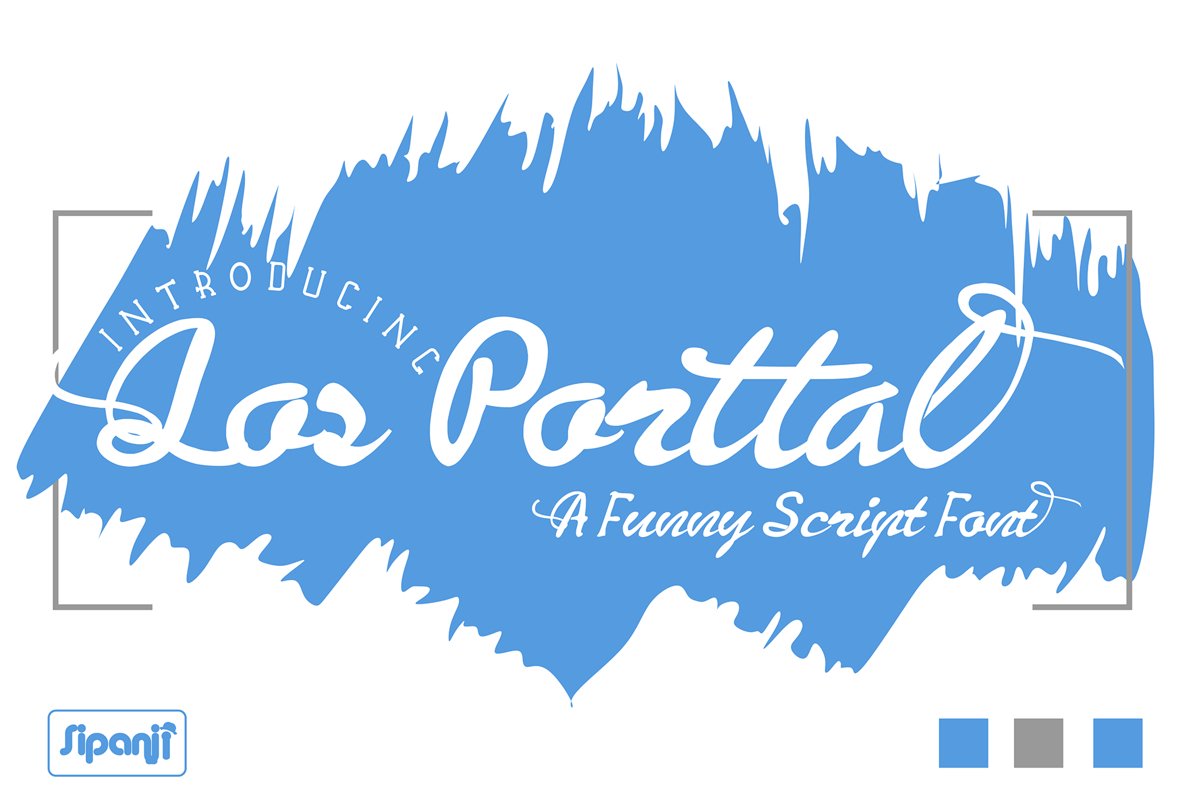
Los Porttal
Los Porttal is an exquisite handwritten font, masterfully designed to become a true favorite. It maintains its classy calligraphic influences while feeling contemporary and fresh. Fall in love with it and bring your projects to the highest levels! This font is PUA encoded which means you can access all of the glyphs and swashes with ease! It features a varying baseline, smooth lines, gorgeous glyphs and stunning alternates.